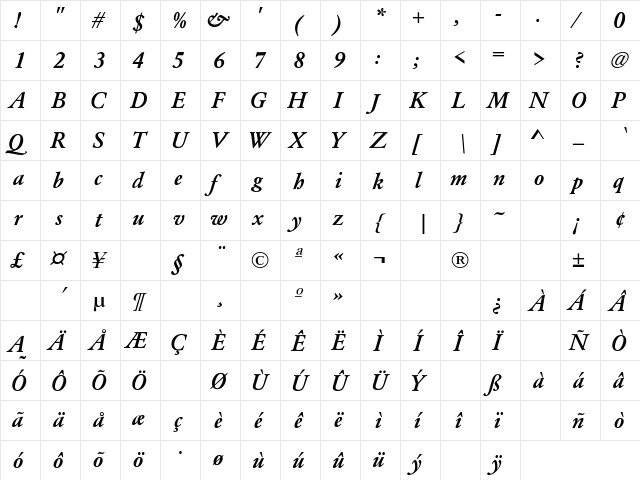
Smedley Italic Regular
Design Context for Smedley Italic Typeface
Smedley Italic is a composed and adaptable typeface that performs quietly and consistently across a wide range of design contexts. Its italic angle brings a sense of urgency and motion to the letterforms.